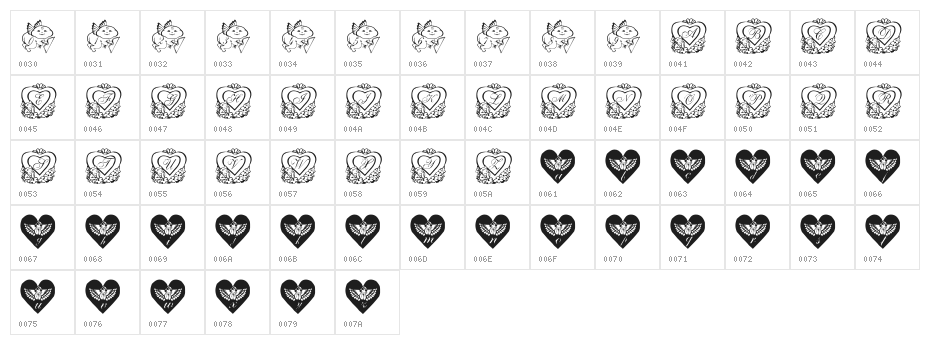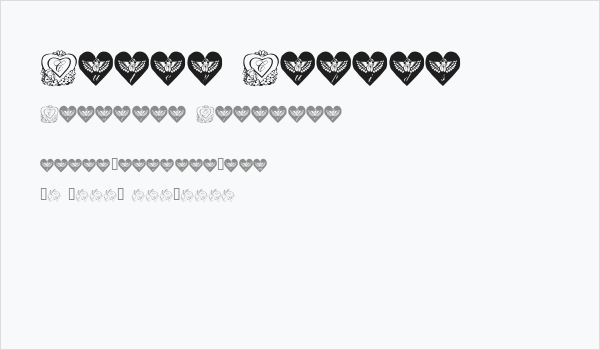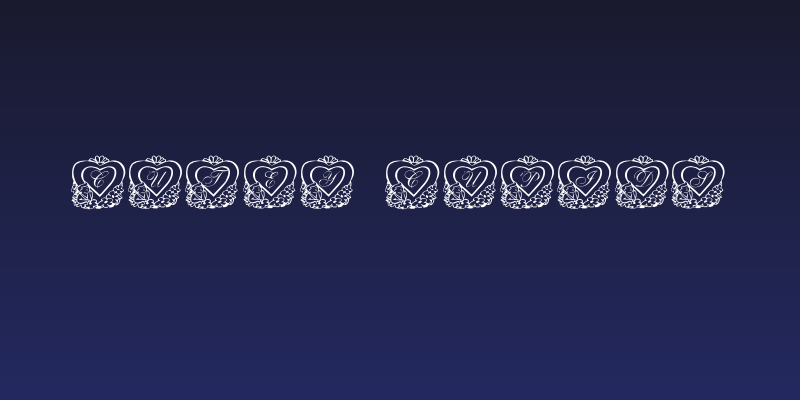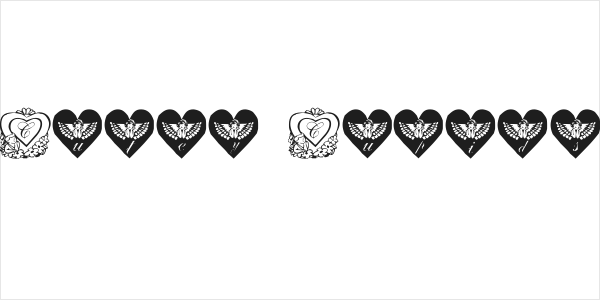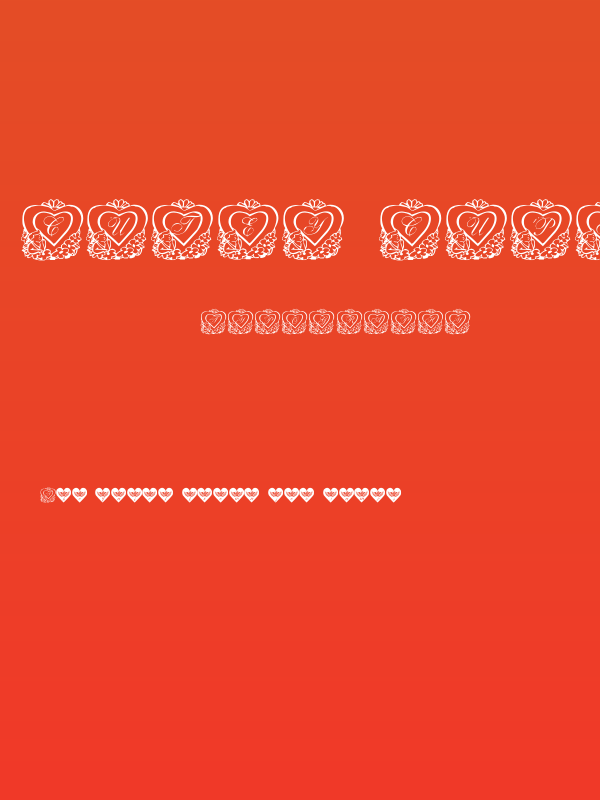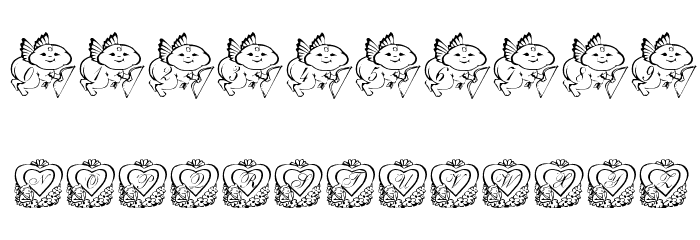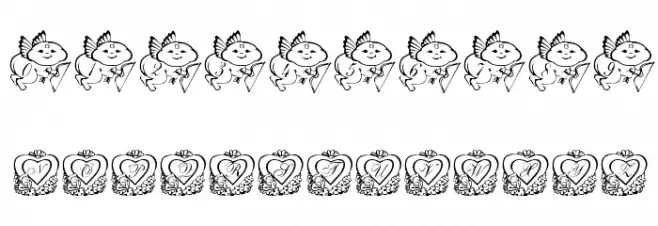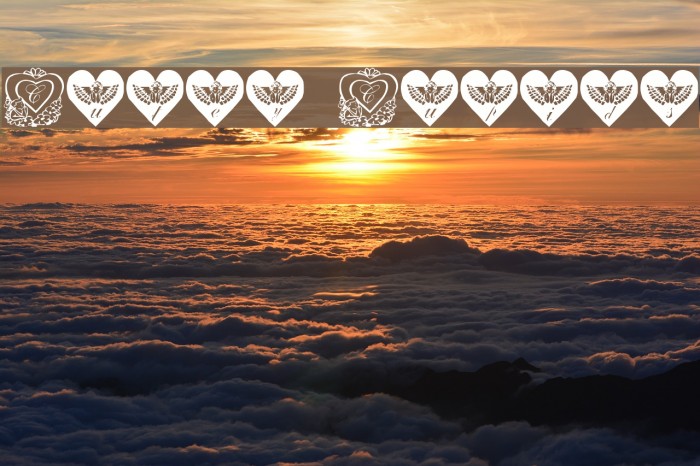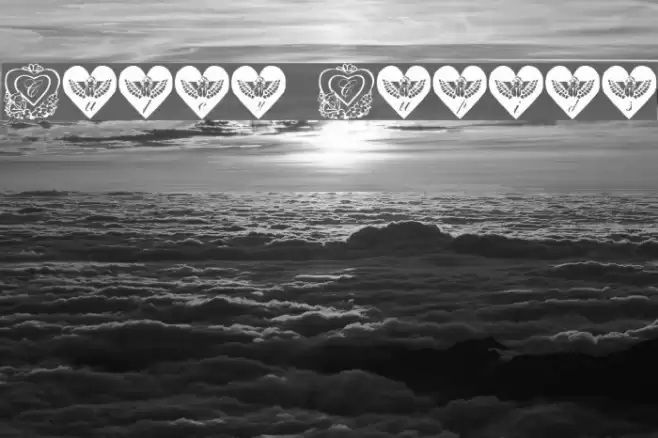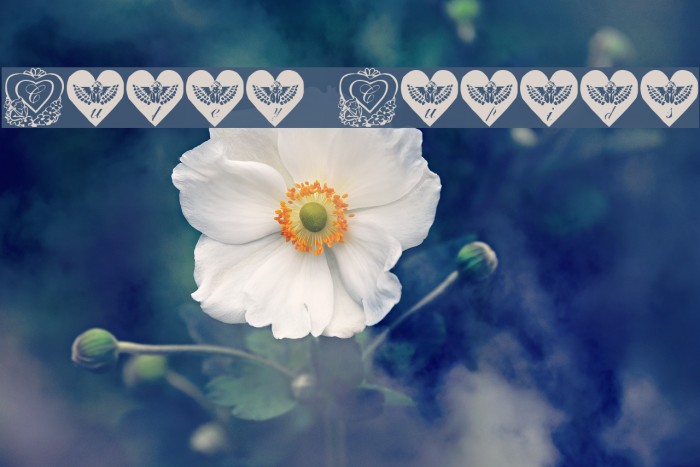
Cutey Cupids Font
| 用途 | Decorative embellishments |
| おすすめプロジェクト | Ideal for use in greeting cards, wedding invitations, scrapbooking, and other romantic or whimsical design projects. |